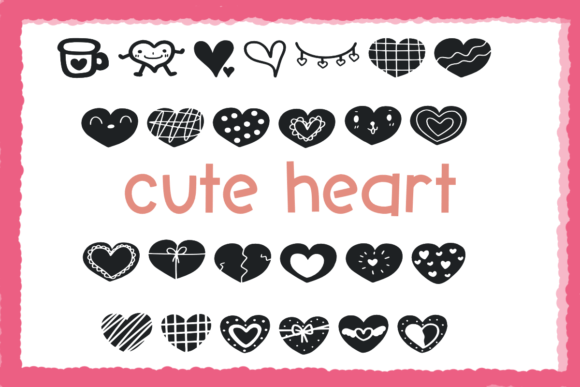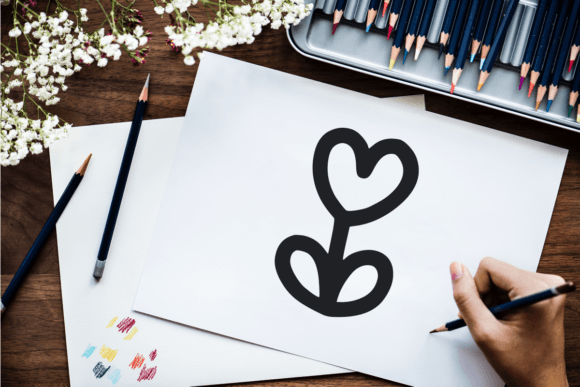
Cute Heart Font: Add a Touch of Adorability to Your Designs
Are you tired of using the same old fonts in your designs? Do you want to add a touch of cuteness and personality to your creations? Look no further than the Cute Heart Font, a hand-drawn dingbats font that’s perfect for designers, crafters, and anyone looking to add some whimsy to their work.
What is Cute Heart Font?
Cute Heart Font is a unique and adorable font that’s designed to bring a smile to your face. This hand-drawn dingbats font features a range of cute heart designs, from simple and classic to more intricate and playful. With its delicate lines and charming details, Cute Heart Font is sure to add a touch of sweetness to any design.
Cute Heart Font is perfect for designers and crafters who want to add a personal touch to their work. Whether you’re creating planners, digital designs, presentations, worksheets, or greeting cards, this font is sure to make your designs stand out. Its versatility and charm make it an ideal choice for a wide range of projects, from DIY crafts to professional designs.
Uses for Cute Heart Font
So, what can you use Cute Heart Font for? The possibilities are endless! Here are just a few ideas to get you started:
- Planners and organizers: Add a touch of cuteness to your planners and organizers with Cute Heart Font. Use it to create custom headers, labels, and icons that will make your planners truly unique.
- Digital designs: Cute Heart Font is perfect for digital designs, from social media graphics to blog posts. Use it to add a touch of personality to your designs and make them more engaging.
- Presentations: Add some charm to your presentations with Cute Heart Font. Use it to create custom slides, headers, and icons that will make your presentations more visually appealing.
- Worksheets and educational resources: Cute Heart Font is a great choice for worksheets and educational resources. Use it to create engaging and interactive learning materials that will delight students and teachers alike.
- Greeting cards and invitations: Cute Heart Font is perfect for creating custom greeting cards and invitations. Use it to add a touch of sweetness and personality to your designs.
Why Choose Cute Heart Font?
So, why choose Cute Heart Font? Here are just a few reasons why this font is a great choice for designers and crafters:
- Unique and adorable design: Cute Heart Font features a unique and adorable design that’s sure to add a touch of personality to your work.
- Hand-drawn dingbats: This font features hand-drawn dingbats that are carefully crafted to bring a touch of whimsy to your designs.
- Versatile: Cute Heart Font is versatile and can be used for a wide range of projects, from DIY crafts to professional designs.
| Font Name | Cute Heart Font |
In conclusion, Cute Heart Font is a great choice for designers and crafters who want to add a touch of cuteness and personality to their work. With its unique and adorable design, hand-drawn dingbats, and versatility, this font is sure to make your designs stand out. Whether you’re creating planners, digital designs, presentations, worksheets, or greeting cards, Cute Heart Font is the perfect choice. So why wait? Download Cute Heart Font today and add a touch of adorability to your designs!
Key Features of Cute Heart Font
- Hand-drawn dingbats font
- Unique and adorable design
- Perfect for planners, digital designs, presentations, worksheets, and greeting cards
- Great for DIY crafts and professional designs
By incorporating Cute Heart Font into your designs, you’ll be able to:
- Create visually appealing and engaging designs
- Add a touch of personality and whimsy to your work
- Make your designs stand out from the crowd
- Showcase your creativity and style